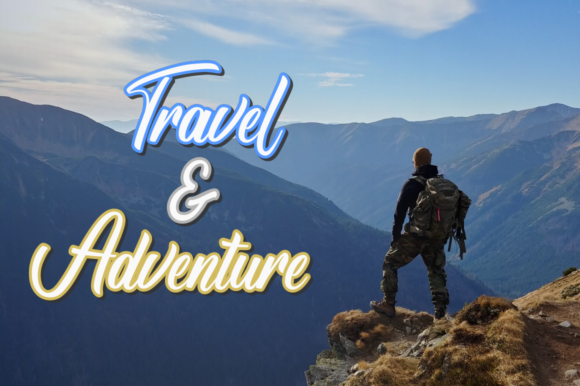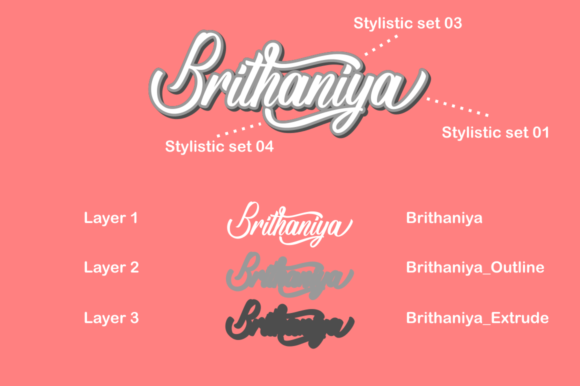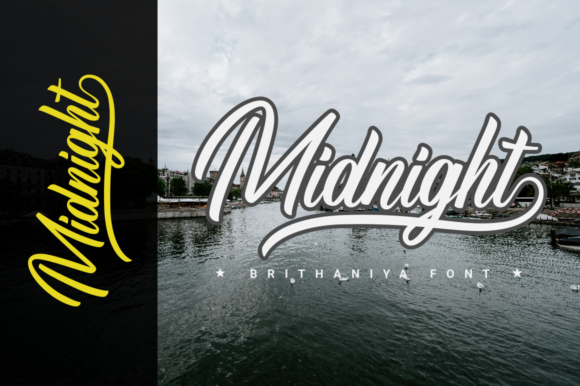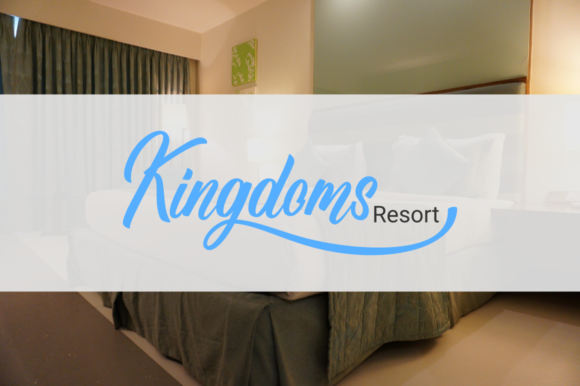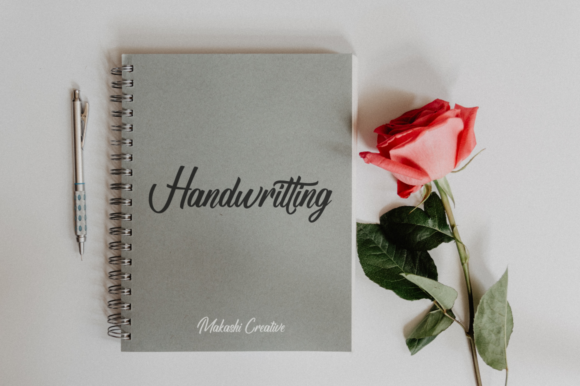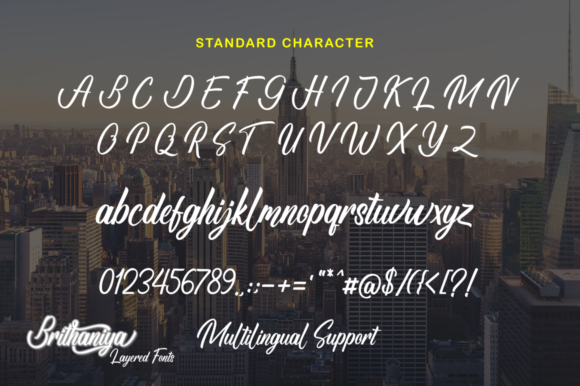
Discover the Modern Charm of Brithaniya Font
In the world of typography, fonts play a crucial role in conveying the tone and personality of a design. For designers and crafters looking for a modern and cool handwritten font, Brithaniya is an excellent choice. With its unique style and contemporary flair, Brithaniya Font is sure to inspire your next creative project.
What Makes Brithaniya Font Stand Out?
Brithaniya Font boasts a distinctive, hand-crafted look that sets it apart from more traditional fonts. Its modern and cool aesthetic makes it perfect for a variety of design applications, from digital media to print materials. The font’s unique style is characterized by its flowing lines, subtle imperfections, and a touch of elegance.
Key Features of Brithaniya Font
- Modern and Cool Aesthetic: Brithaniya Font features a contemporary design that is both stylish and sophisticated.
- Unique Handwritten Style: The font’s hand-crafted look adds a personal touch to any design, making it perfect for creative projects.
- High Versatility: Brithaniya Font can be used for a wide range of applications, including headings, titles, and short paragraphs.
- Easy to Read: Despite its unique style, Brithaniya Font remains highly legible, making it suitable for both digital and print media.
Brithaniya Font is more than just a typography; it’s a source of inspiration for designers and crafters looking to add a modern touch to their work. Whether you’re creating a brand identity, designing a website, or crafting a social media post, Brithaniya Font can help you stand out from the crowd.
Using Brithaniya Font in Your Designs
Brithaniya Font can be used in a variety of design applications, including:
- Branding and Identity: Create a unique and memorable brand identity with Brithaniya Font.
- Web Design: Add a touch of modern elegance to your website with Brithaniya Font.
- Print Materials: Use Brithaniya Font for brochures, flyers, posters, and other print materials.
- Social Media Graphics: Create eye-catching social media graphics with Brithaniya Font.
Tips for Pairing Brithaniya Font with Other Fonts
To get the most out of Brithaniya Font, consider pairing it with other fonts that complement its modern and cool aesthetic. Here are a few tips:
- Pair with Sans-Serif Fonts: Pair Brithaniya Font with sans-serif fonts, such as Arial or Helvetica, for a clean and modern look.
- Combine with Script Fonts: Combine Brithaniya Font with script fonts, such as Pacifico or Great Vibes, for a elegant and sophisticated look.
- Use with Monospace Fonts: Use Brithaniya Font with monospace fonts, such as Courier or Monaco, for a bold and edgy look.
Brithaniya Font is a modern and cool handwritten font that is sure to inspire your next creative project. With its unique style, contemporary flair, and high versatility, Brithaniya Font is an excellent choice for designers and crafters looking to add a touch of elegance to their work. Whether you’re creating a brand identity, designing a website, or crafting a social media post, Brithaniya Font is the perfect choice.